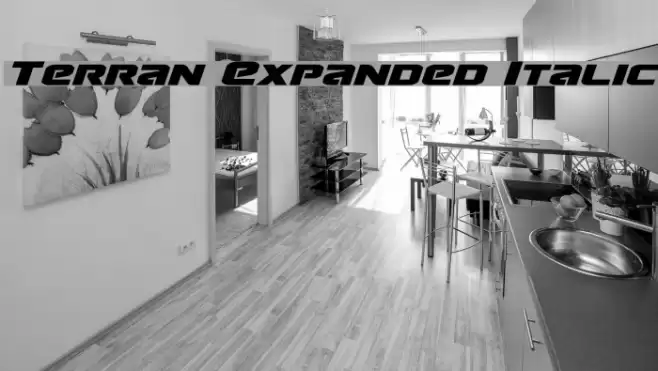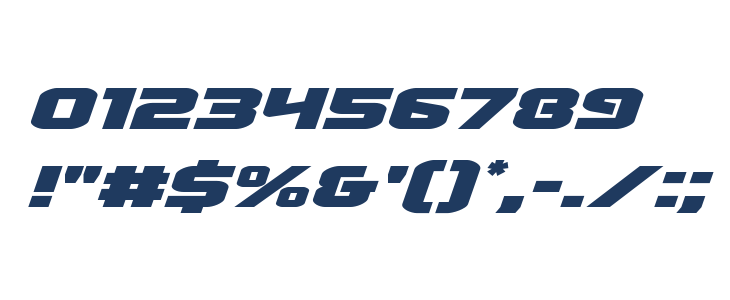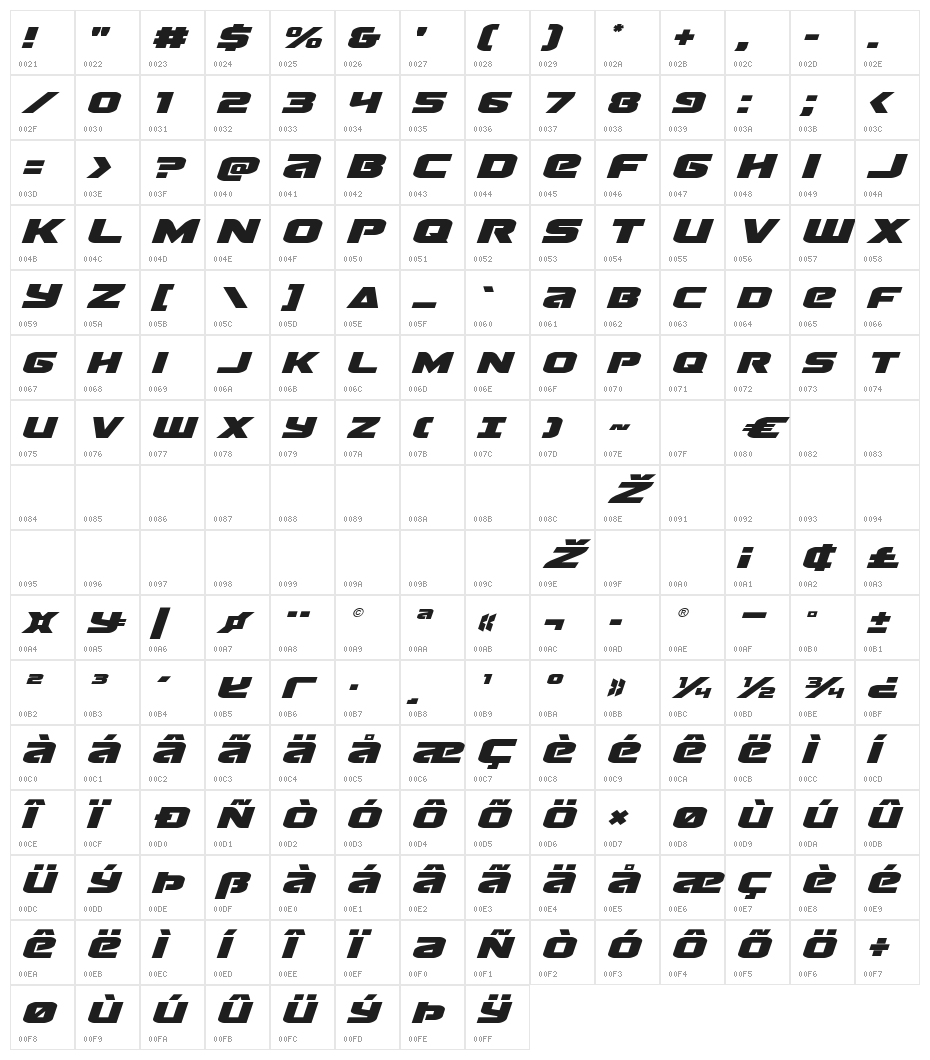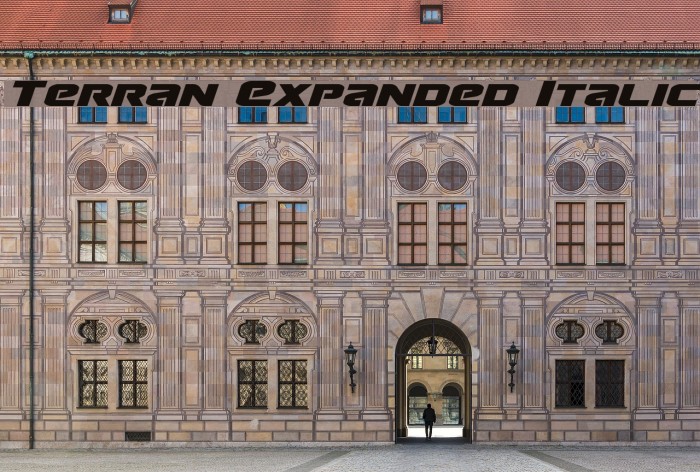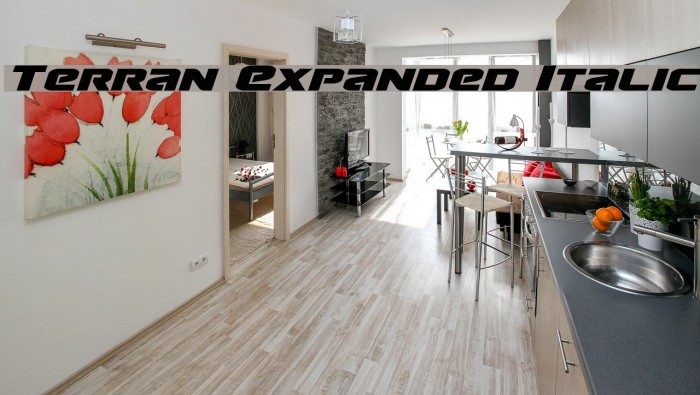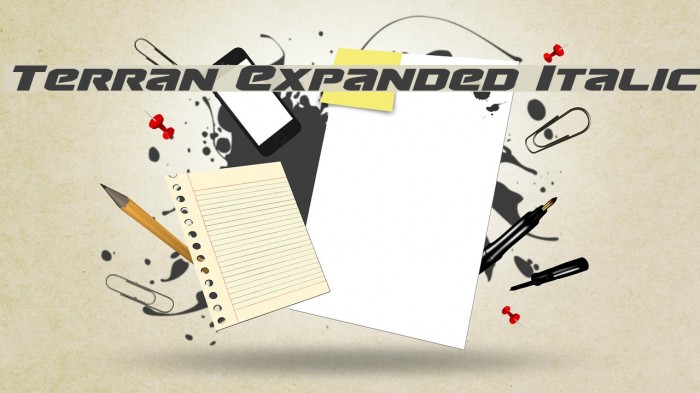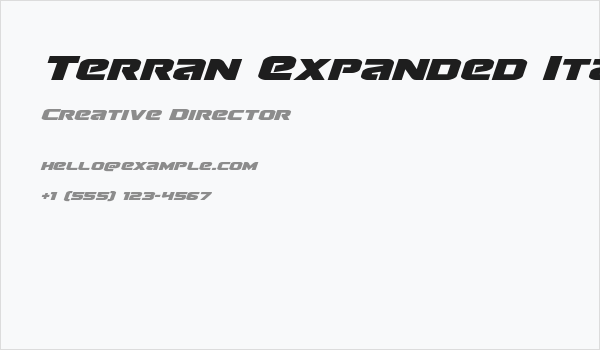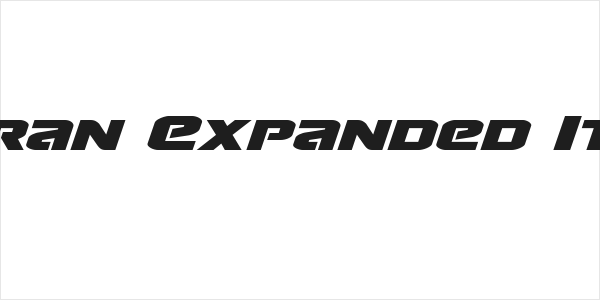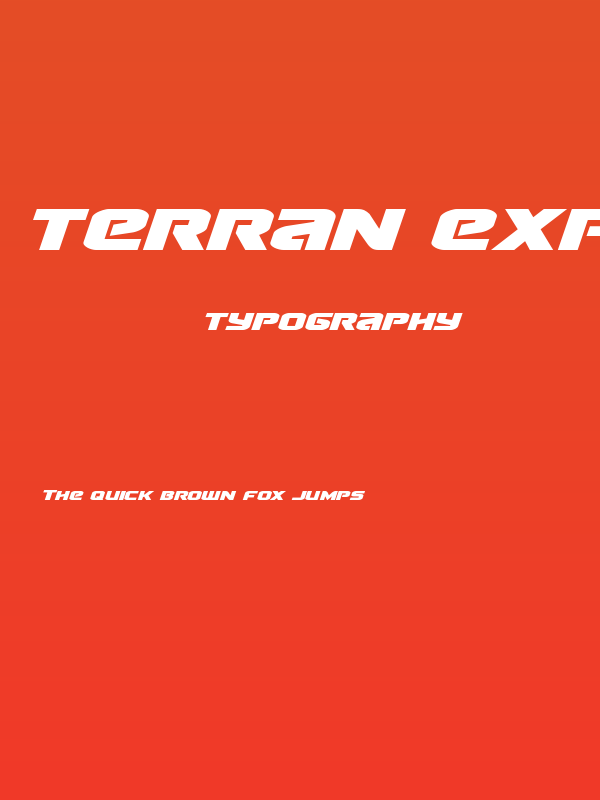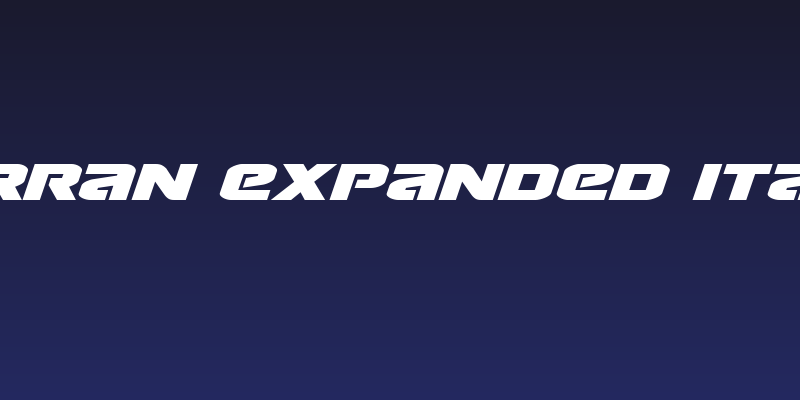
Terran Expanded Italic Font
Terran Expanded Italic Description
This font exhibits a bold and dynamic style with a futuristic flair. The characters are italicized, giving a sense of motion and speed. The expanded width of the letters adds to its bold presence, making it ideal for attention-grabbing headlines or titles. The strokes are consistent in thickness, providing a uniform appearance across all characters. The design is sleek and modern, with sharp angles and clean lines that contribute to its contemporary aesthetic. This font is well-suited for projects that require a strong and impactful visual statement.
A bold, italicized, and expanded font with a futuristic and dynamic style from Uncategorized fonts.
- Proposed Projects: Ideal for sci-fi themed designs, video game titles, technology branding, and sports team logos.